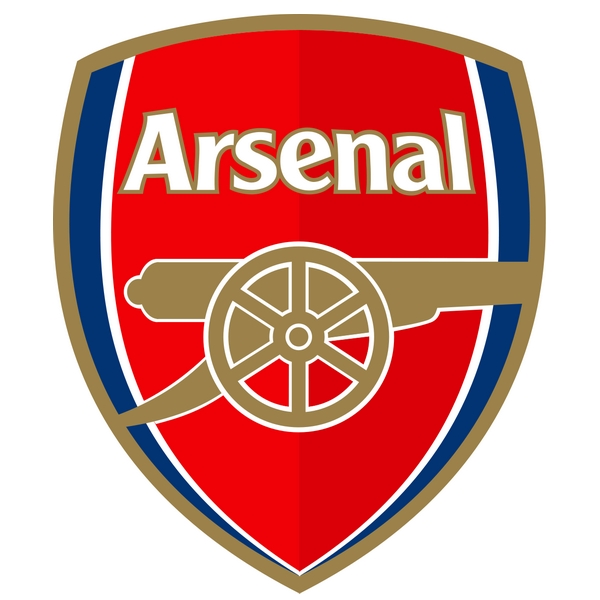
Arsenal Font
Fonts in UseArsenal Football Club is a professional football club based in London, England, that competes in the Premier League.
The current Arsenal logo unveiled in 2002 showcases a cannon pointing toward the east. The wordmark is designed based on Clearface Gothic Roman font designed by Morris Fuller Benton in 1984, with certain letter alterations.